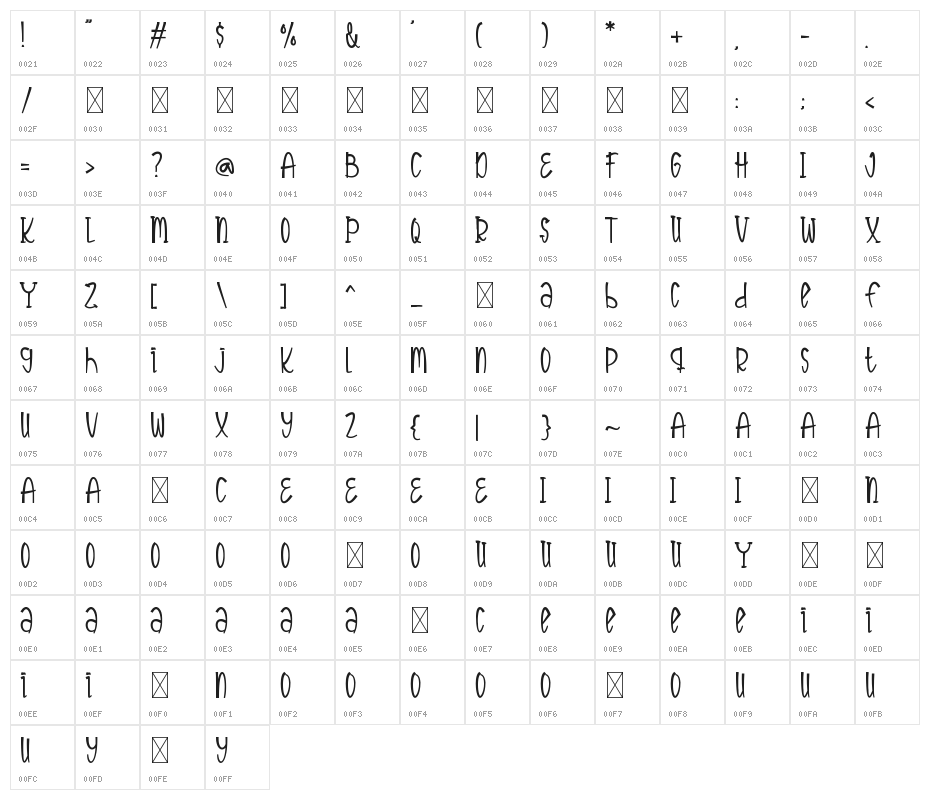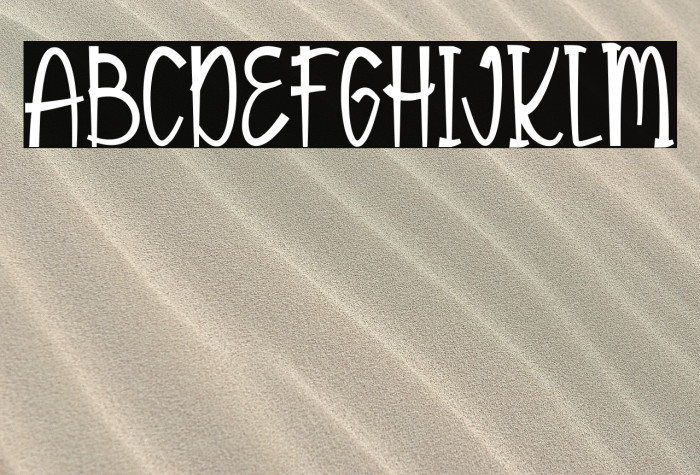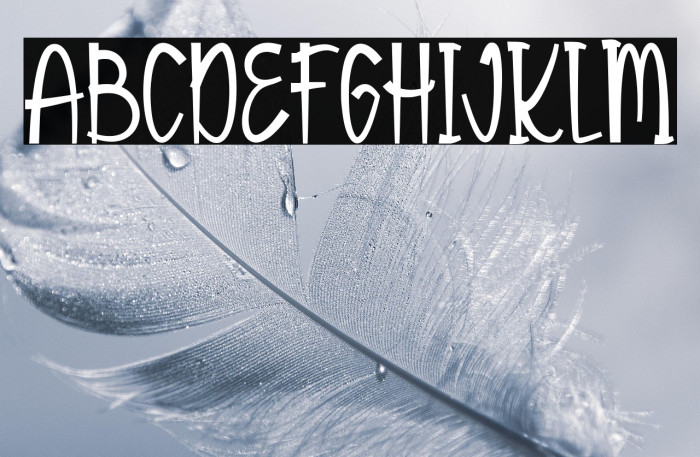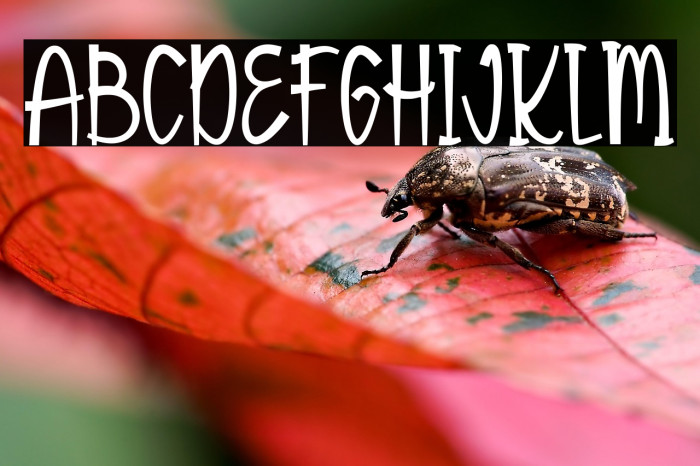
Funny Rabbit Font
Funny Rabbit Description
This playful and whimsical font features a unique blend of curved and angular lines, creating a lively and energetic appearance. The uppercase letters are bold and slightly condensed, with exaggerated serifs that add a touch of fun. The lowercase letters maintain a consistent style, with a slightly more relaxed and flowing form. The numbers and special characters are designed to match the overall playful theme, making them perfect for creative projects. The font's distinctive style is ideal for capturing attention and conveying a sense of joy and creativity.
| Width | Condensed |
| Overall Style | Playful, Whimsical |
| Proposed Projects | Ideal for children's books, playful branding, party invitations, and creative posters. |